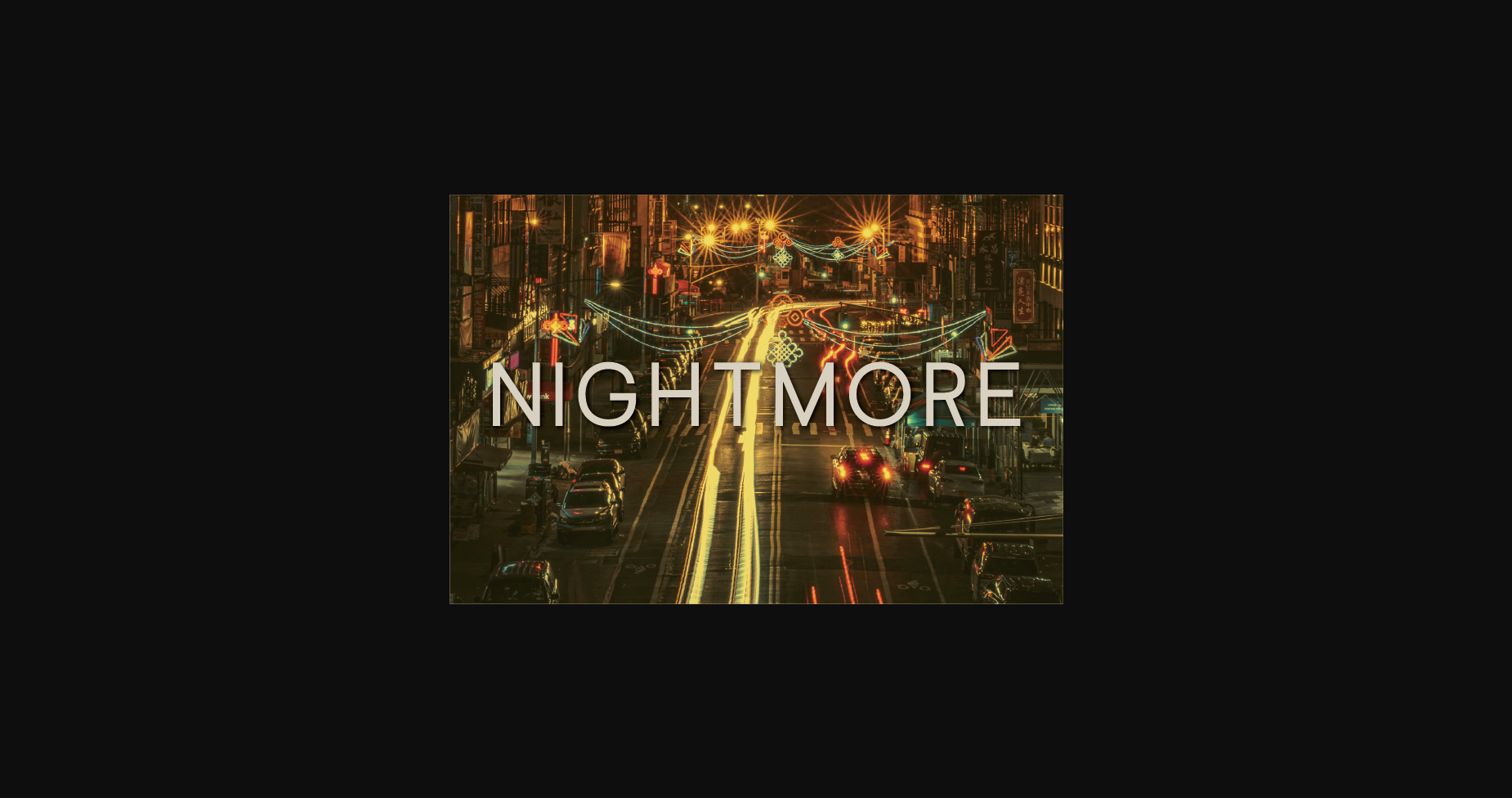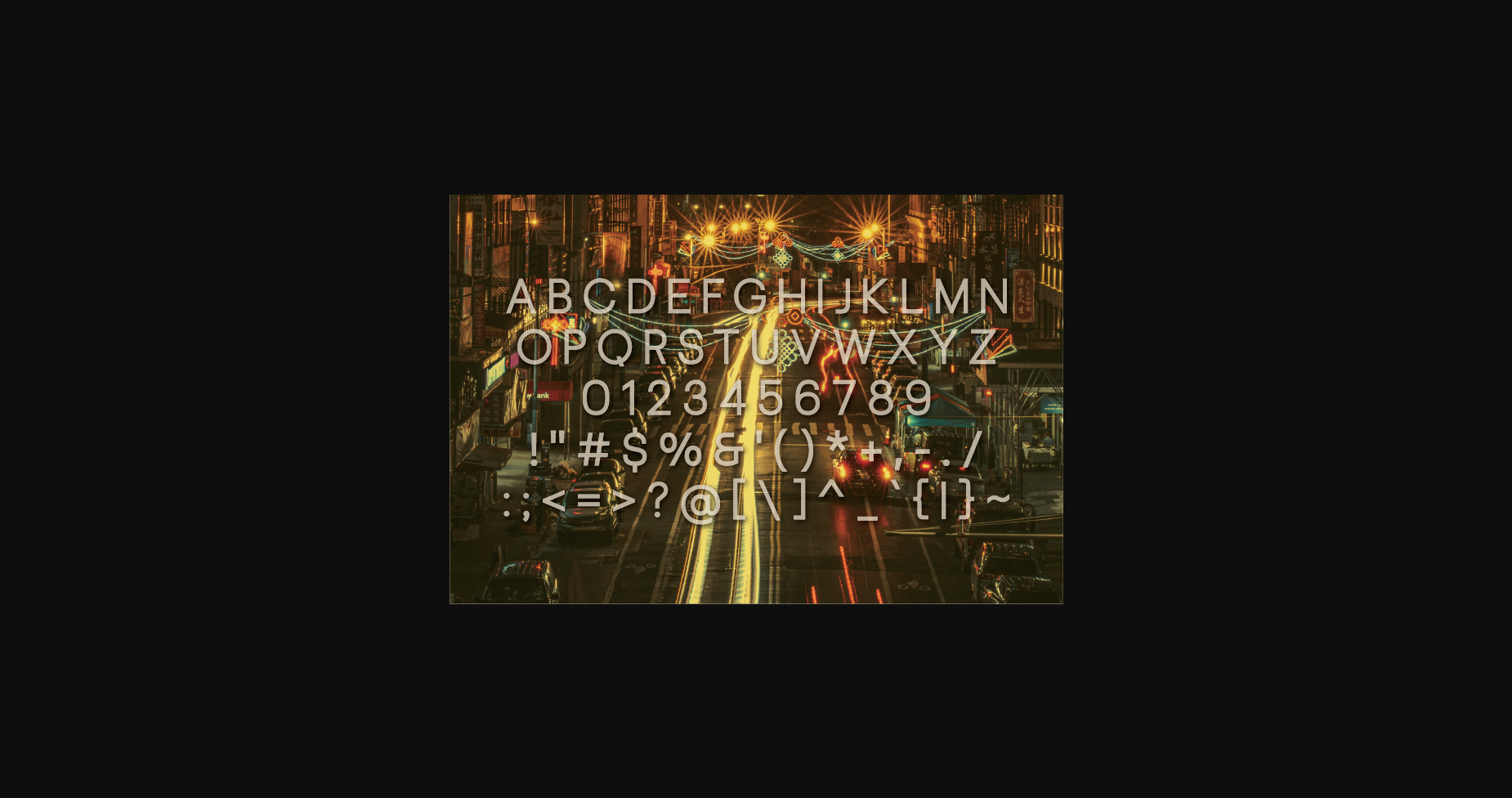
About Nightmore Font
Nightmore is a minimal and neat sans serif font. It can easily be matched to an incredibly large set of projects, so add it to your creative ideas and notice how it makes them stand out!